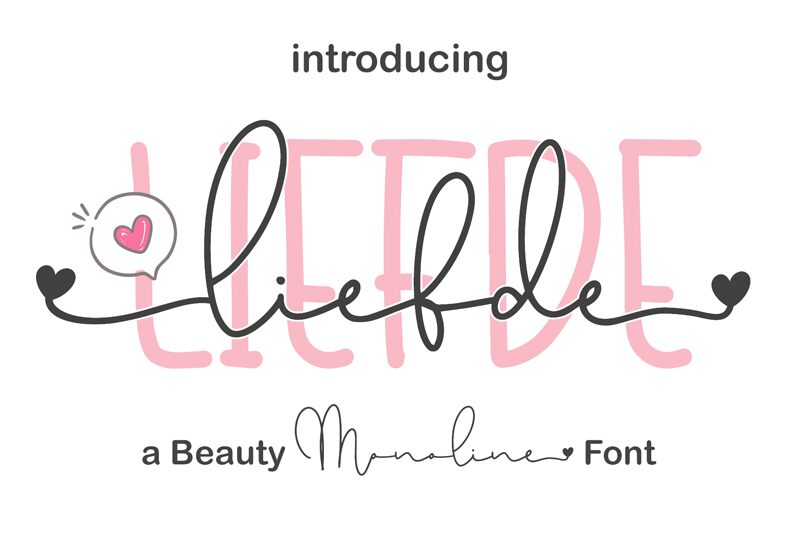
Liefde, the newest addition to Bearytype's portfolio, is a charming handwritten font that captures the essence of whimsy and sophistication. With its delicate strokes and extra-light weight, Liefde brings a touch of elegance to any project it graces. Whether you're designing wedding invitations or creating social media graphics for a boutique brand, this font's playful yet refined style is sure to delight your audience. Use Liefde in headings or body text for a truly personalized touch that stands out from the crowd. Let Liefde be the perfect accompaniment to your next creative venture.
Liefde